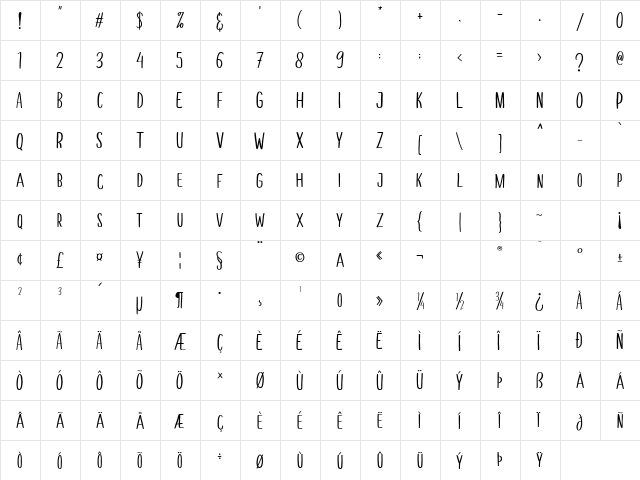
Melloner Fun Regular
| Foundry | Alit Design |
| Designer | Alit Suarnegara |
Melloner Fun has an approachable, lighthearted character — its loose, expressive forms are well-suited to children's content, casual branding, and fun-first design.
Great for children's books, toy packaging, family event branding, and casual consumer-facing design.
Font Pairing: Pairs well with a rounded or humanist sans for body copy, maintaining the friendly tone without relying on Melloner Fun to carry extended reading.
Pro Tip: Avoid using Melloner Fun for long passages of text — it works best for headlines, labels, and short calls to action.